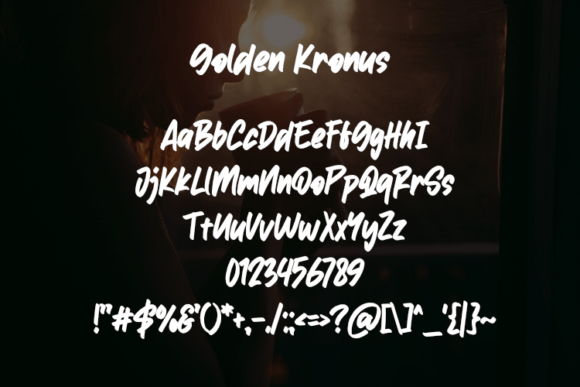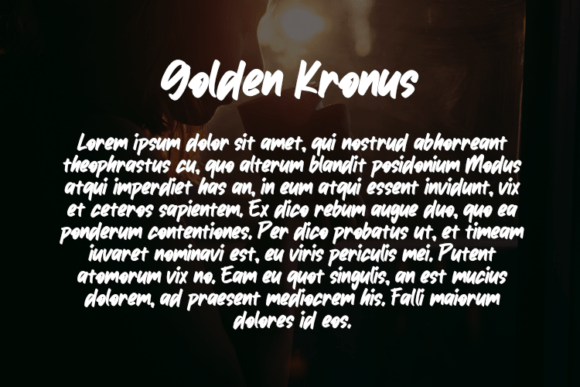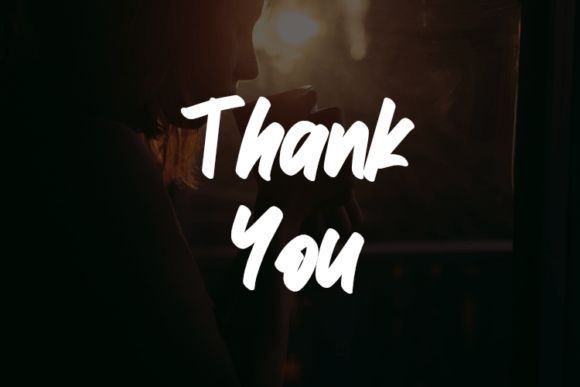
Introduction to Golden Kronus Font
Have you ever stared at a blank canvas, waiting for inspiration to strike? That’s exactly where I was when I stumbled upon the Golden Kronus Font. Its elegant curves and lines instantly captured my attention, and I knew I had to incorporate it into my design project. As a designer, I can attest that finding the perfect font can make all the difference between a mediocre and an extraordinary creative output.
That’s where the Golden Kronus Font comes in – a high-quality, versatile font that adapts seamlessly to any design aesthetic. Whether you’re working on a clothing line, a t-shirt design, or a marketing campaign, this font is an invaluable resource that can elevate your creative project to new heights. With its transparent background and effortless integration into design software, the Golden Kronus Font is a must-have for any designer looking to add a touch of sophistication to their work.
Key Features of Golden Kronus Font
- High-quality vector font designed for creative projects, perfect for logos, branding, and digital designs.
- Features a unique, modern design aesthetic that is sure to elevate any creative project.
- Perfect for use in print, web, or digital applications, including logos, business cards, and social media graphics.
Honest Review: Golden Kronus Font
I recently had the opportunity to try out the Golden Kronus Font, and I’m excited to share my thoughts with you. As a designer, I’m always on the lookout for high-quality fonts that can elevate my creative projects.
The Golden Kronus Font did not disappoint. It has a unique and elegant design that works well for a variety of purposes, from body text to headings. I particularly liked the transparent background option, which made it easy to layer with other design elements.
Here are some of the things that work well with the Golden Kronus Font:
- Unique and elegant design
- High-quality and clear typography
- Limited character set (may not be suitable for complex or technical text)
- No bold or italic versions available
Tips for Getting the Most Out of Golden Kronus Font
To get the most out of the Golden Kronus Font, use it with a transparent background to create a unique and eye-catching design. You can also experiment with different font sizes and styles to create a visually appealing effect.
Common Use Cases for Golden Kronus Font
The Golden Kronus Font is ideal for use in logos, posters, and other creative projects where a high-quality, unique font is needed. Its versatility and style make it a great choice for a variety of applications.